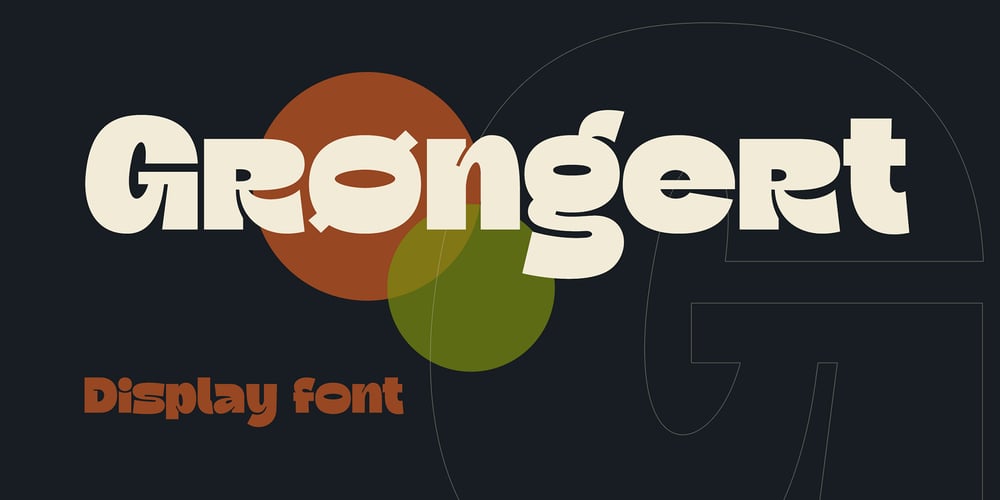
Grongert Font Family was designed by Oleg Gert and published by Oleg Gert. Grongert contains 3 styles and family package options. Decorative font Stonegert equipped with alternative characters, ligatures, and multi-language support. This font equipped with several features such as alternative characters, ligatures, and multi-language support that makes it easier for you to design. This font is perfect for your design needs such as poster design, logo design, branding, social media design, book, magazine, etc.